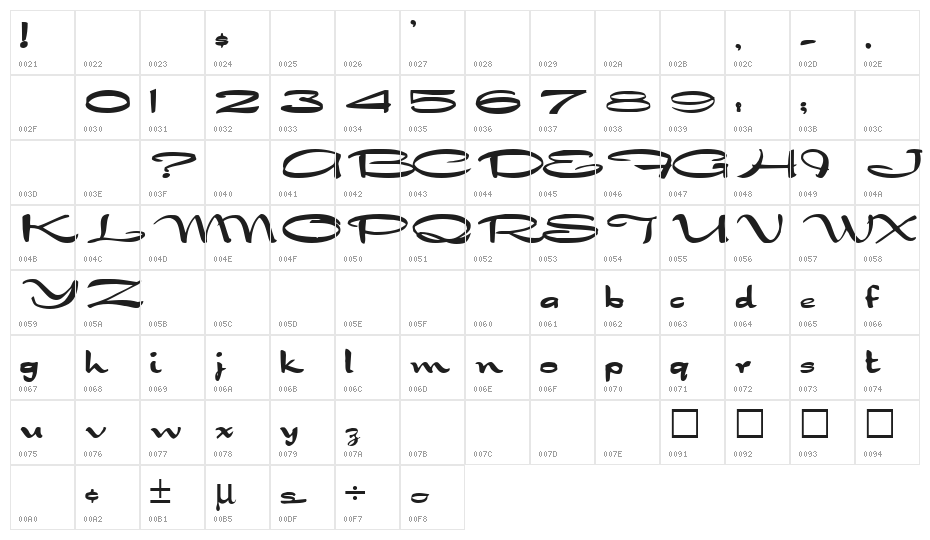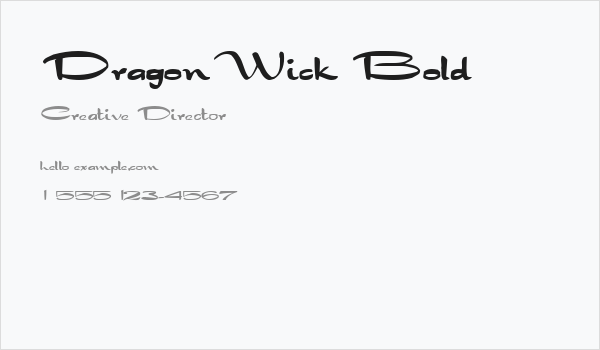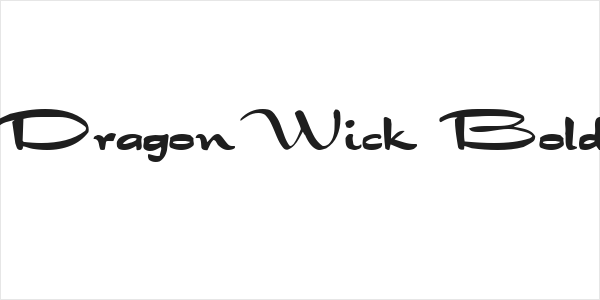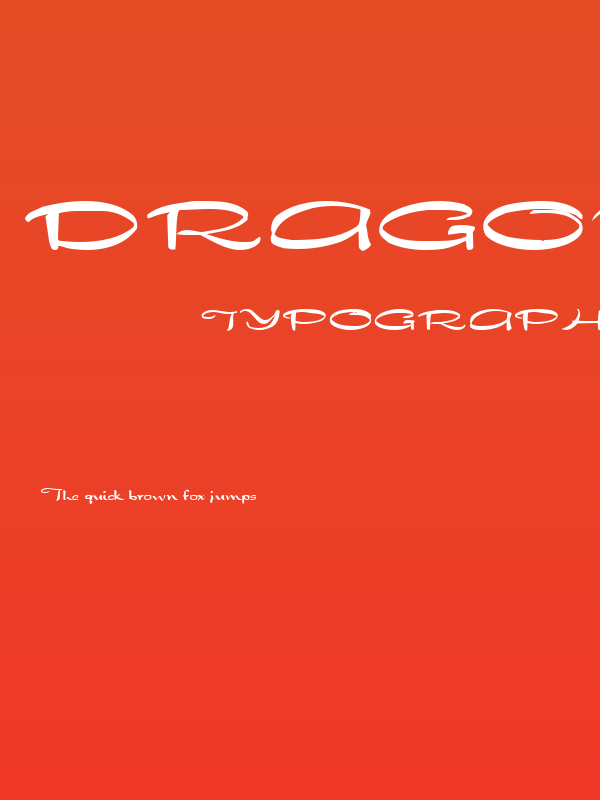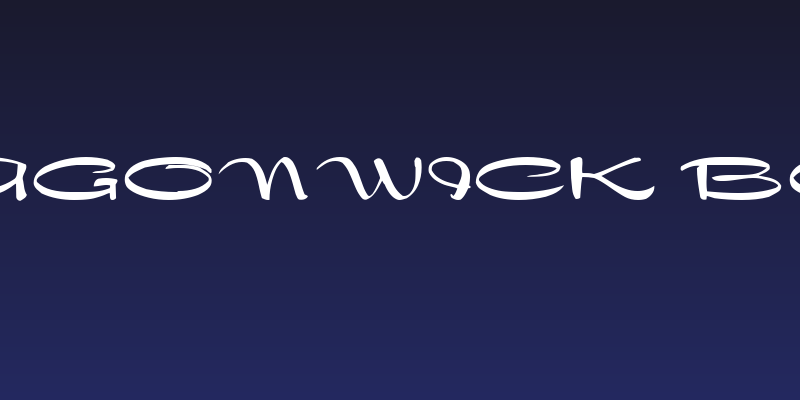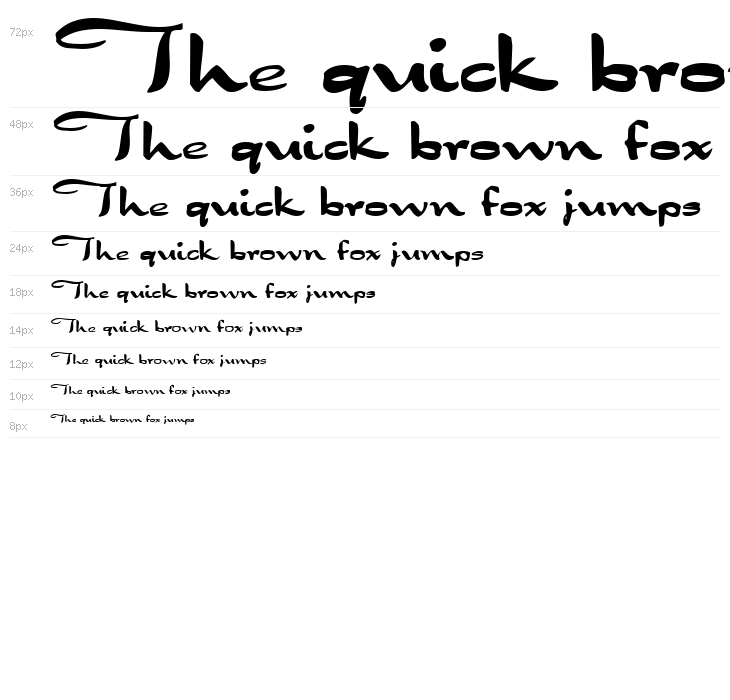
DragonWick Bold Font
DragonWick Bold Description
This font features a bold and dynamic style with a distinct flair, characterized by its flowing, cursive-like strokes and unique character shapes. The uppercase letters exhibit a whimsical, almost calligraphic quality, while the lowercase letters maintain a consistent, rounded form that complements the overall design. The numerals are equally stylized, offering a cohesive look throughout the typeface. Special characters are creatively integrated, adding to the font's decorative appeal. This font is ideal for projects that require a touch of elegance and creativity, making it suitable for headlines, logos, and artistic designs.
| Use Case | Headlines, Logos, Artistic designs |
| Proposed Projects | Ideal for creative projects such as logos, headlines, posters, and artistic designs. |